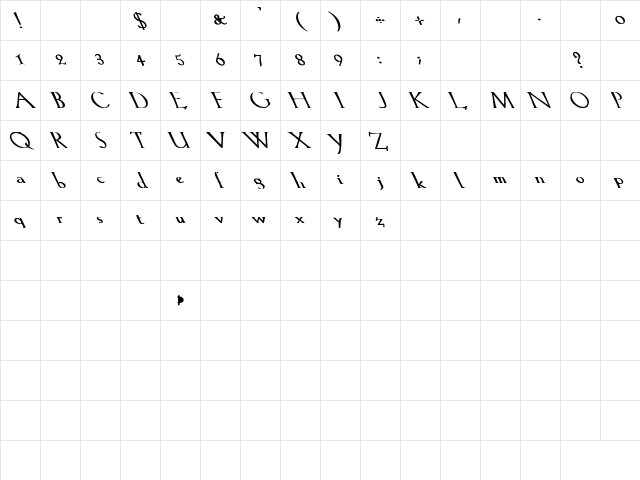
Complete Lilith-Light bOLD Lefty Bold glyph index. Displaying only characters natively supported by Lilith-Light bOLD Lefty Bold font.
Lilith-Light bOLD Lefty is a composed and adaptable typeface that performs quietly and consistently across a wide range of design contexts. Its bold stroke weight gives it real presence on the page.